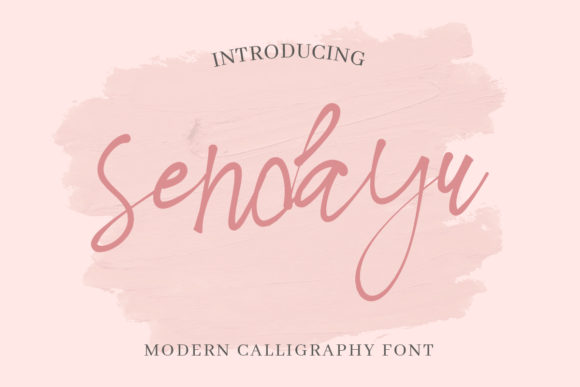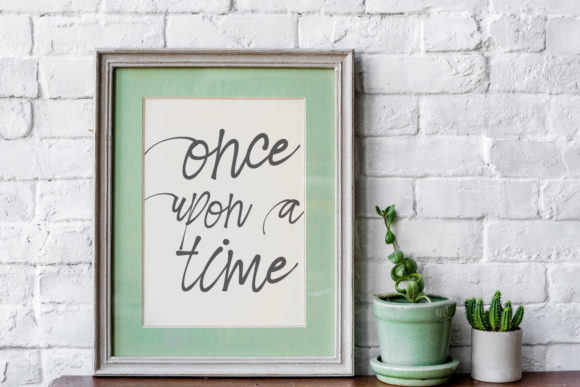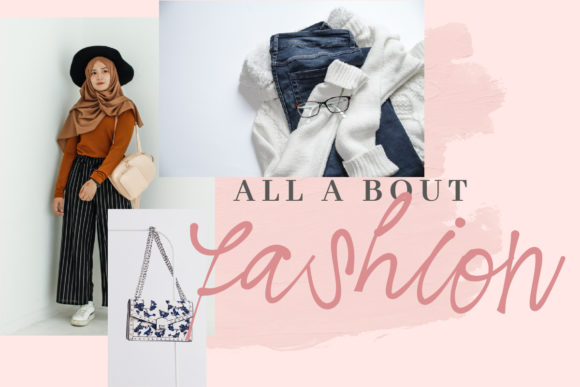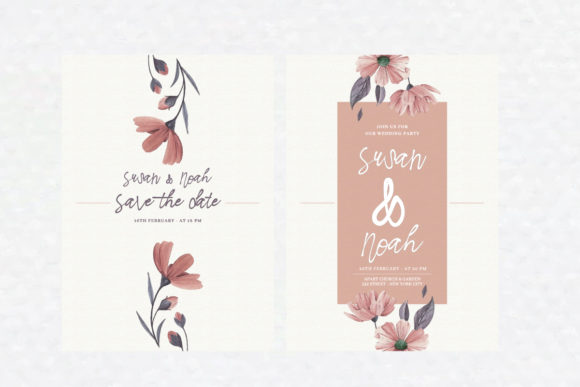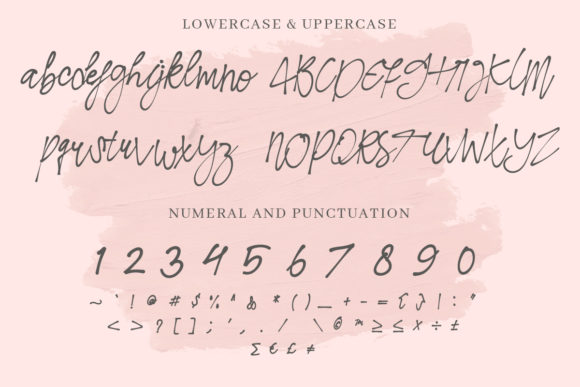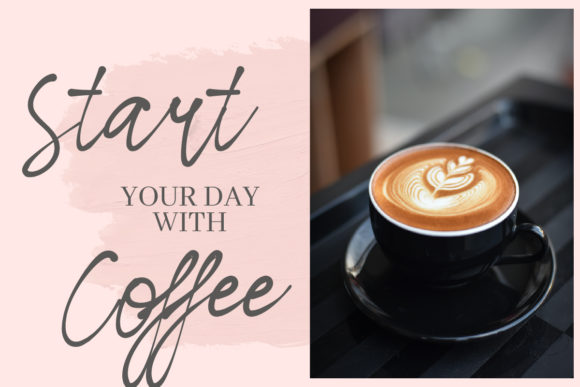
Introduction to Sendayu Font
Sendayu is an incredibly relaxed handwritten font.
It is PUA encoded which means you can access all of the glyphs and swashes with ease It features a varying baseline, smooth lines, gorgeous glyphs and stunning alternates.
Sendayu Font offers exceptional quality and versatility, making it a valuable addition to your design toolkit. Whether you’re creating for personal projects or commercial use, Sendayu Font delivers professional results.